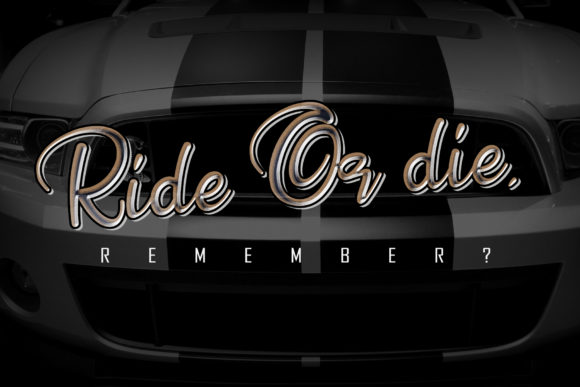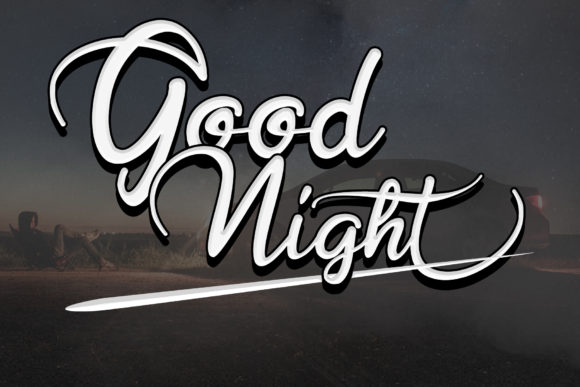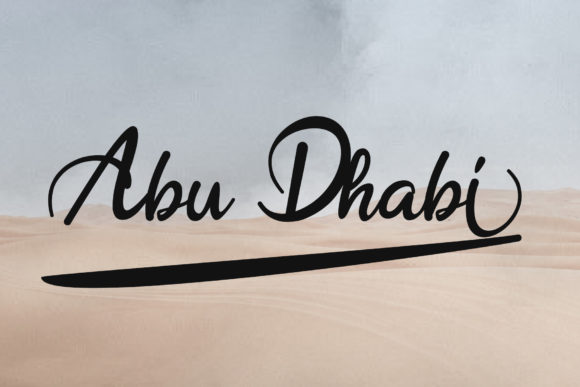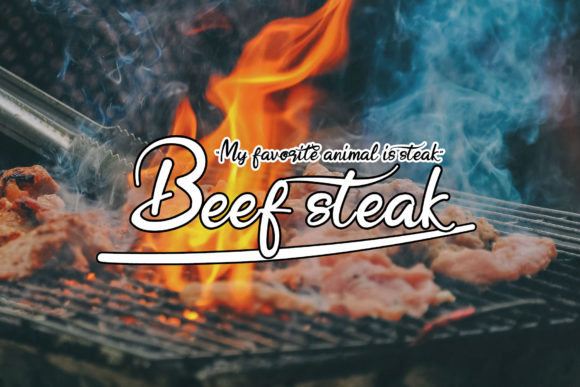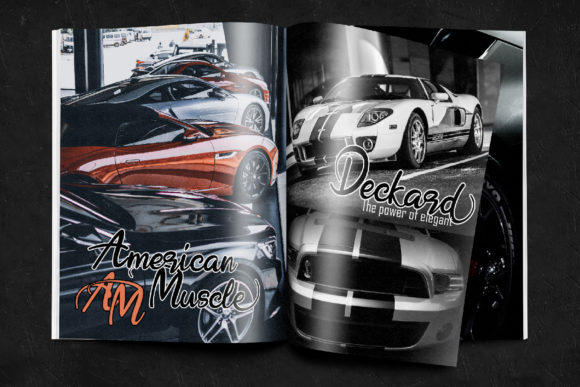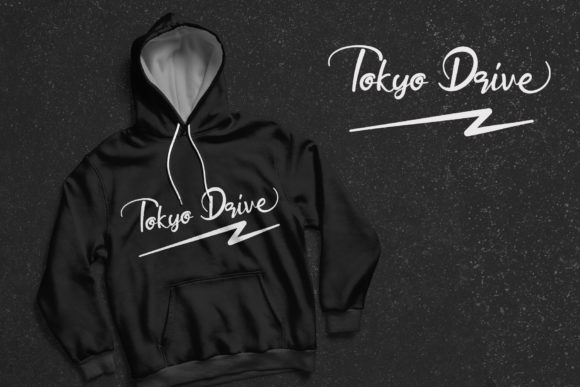
You know that moment when you’re brainstorming ideas for a new project and suddenly, a spark of inspiration hits you? You see a bold, handwritten font in your mind’s eye, and you just know it’s the perfect fit. For many designers, that spark is often ignited by the Hobenshaw Font – a bold and fun handwritten font with a lot of unique charm.
With its urban feel and playful personality, Hobenshaw Font is the perfect choice for designers looking to add a touch of whimsy to their next project. Whether it’s a logo, a poster, or a social media graphic, this font is sure to grab attention and leave a lasting impression. Its versatility and charm make it a valuable addition to any designer’s toolkit, and its urban feel is particularly well-suited to projects with a modern, edgy vibe.
Hobenshaw Font Key Features
- Unique Characteristics: Hobenshaw Font features a distinctive, elegant script style with subtle flair and organic feel, making it ideal for creative, artistic, and luxurious designs.
- Font Width: Hobenshaw Font has a medium to wide width, making it suitable for use in headings, titles, and other prominent design elements where a strong visual impact is desired.
Hobenshaw Font Review
At first glance, the Hobenshaw Font seems to be a solid addition to any design library. Here are some aspects where it truly shines: ✨
- Unique flair**: The font’s distinctive flair adds a touch of elegance and sophistication to any text-based design.
- Legibility**: Despite its flair, the font remains remarkably legible, making it suitable for both body text and headings.
- Consistency**: The font’s design is consistently executed throughout, ensuring a cohesive look and feel.
However, as with any font, there are some limitations to consider: ⚠️
- Narrow range of weights**: The font currently only comes in a limited range of weights, which may not be sufficient for some design applications.
- May not be suitable for very large text**: Due to its flair, the font may not be the best choice for very large text sizes, where legibility is a top priority.
Overall, I find the Hobenshaw Font to be a pleasant addition to any design library, with a unique flair and solid legibility. While it may have some limitations, it’s definitely worth considering for your next design project.
Tips for Getting the Most Out of Hobenshaw Font
For best results, use Hobenshaw Font in bold or italic styles to emphasize important text. Pair it with a clean and simple background to let the font take center stage. Experiment with different font sizes and colors to create visual interest.
Hobenshaw Font is suitable for a variety of applications, including:
– Magazine headlines and articles
– Book titles and chapter headings
– Branding and advertising